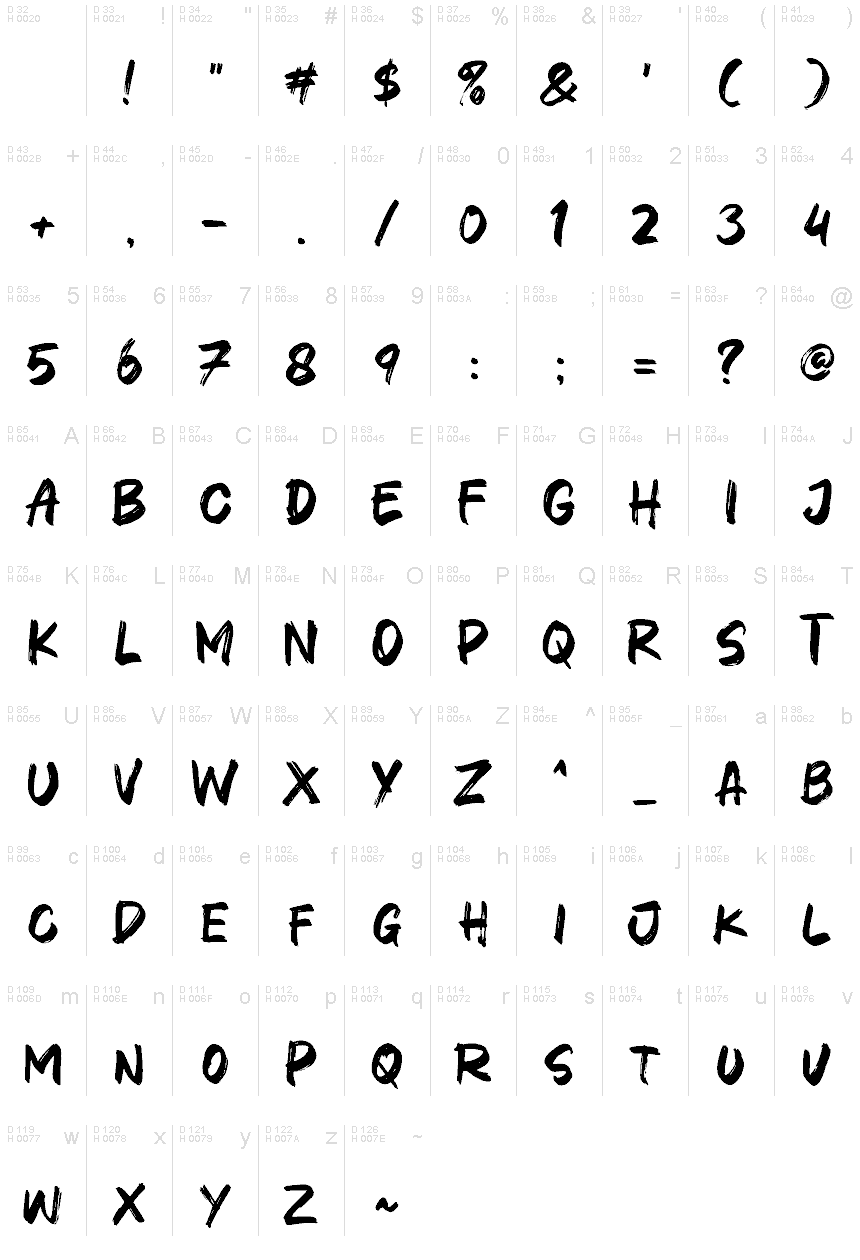
Brat Town
Brat Town font is a rough brush typeface, with a loose and edgy vibe. The free font features an expressive appearance with unforgettable curves, sharp lines, and distinctive angles. Each letter by Khurasan impresses with its casual tone despite its sizing, so both large and small texts have a loud artistic flair that cannot be repeated.
Invite readers to experience the beauty of relaxed designs in branding presentations that hold their own personality. Use Brat Town for movie posters of actions and thrillers including titles and names’ display, video games graphics, magazines covers or typography artwork like artwork. It also supports books cover design as well as ads for different businesses from clothing stores to sports’ centers advertisements. Enjoy all these within your private projects or professional works!